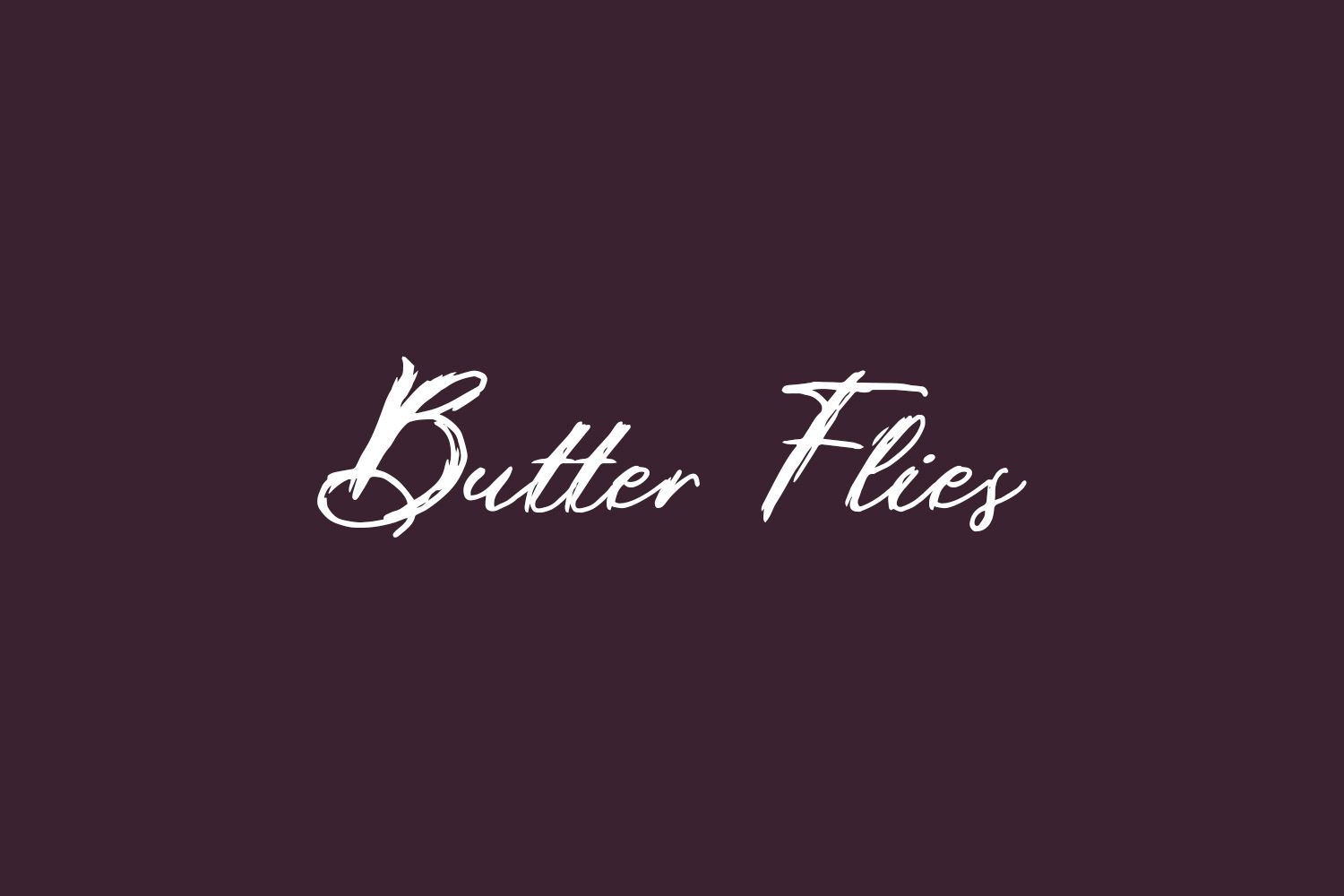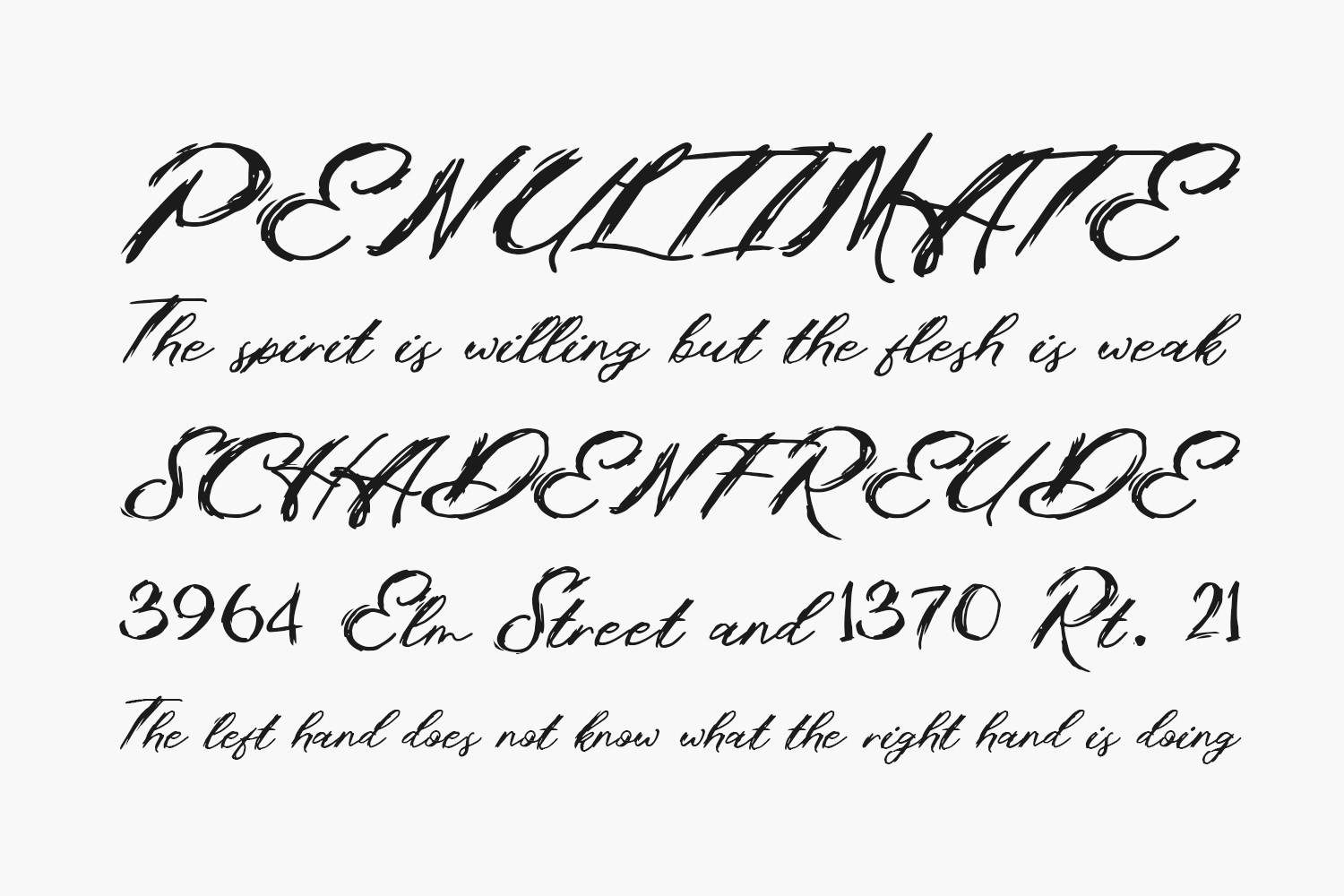
Butter Flies Free Font is a unique and modern brushed handwritten font. It looks beautiful on a variety of designs requiring a personalized style, such as wedding invitations, thank you cards, weddings, greeting cards, logos, and so on. Butter Flies Free Fon was designed by Nico Muslib and is free for personal use only. Please purchase the full version for commercial use.